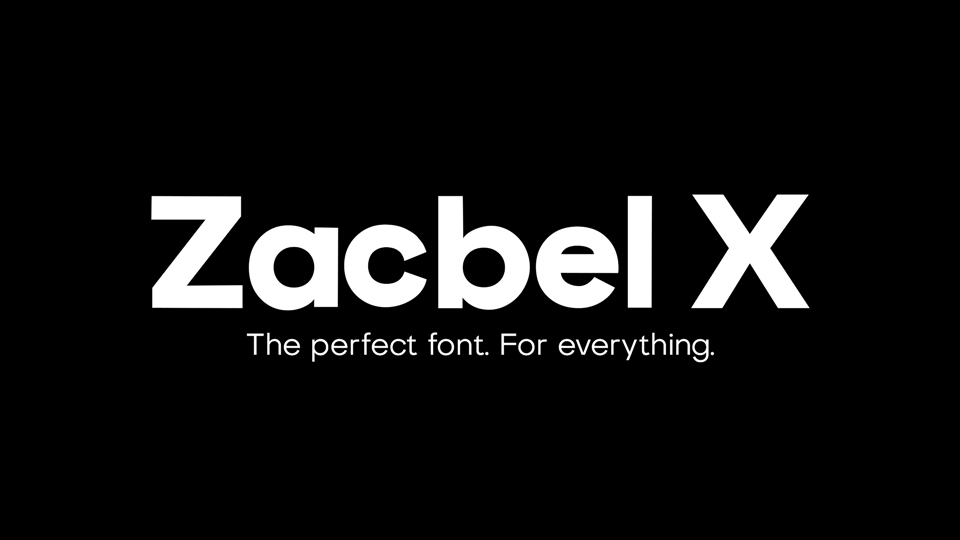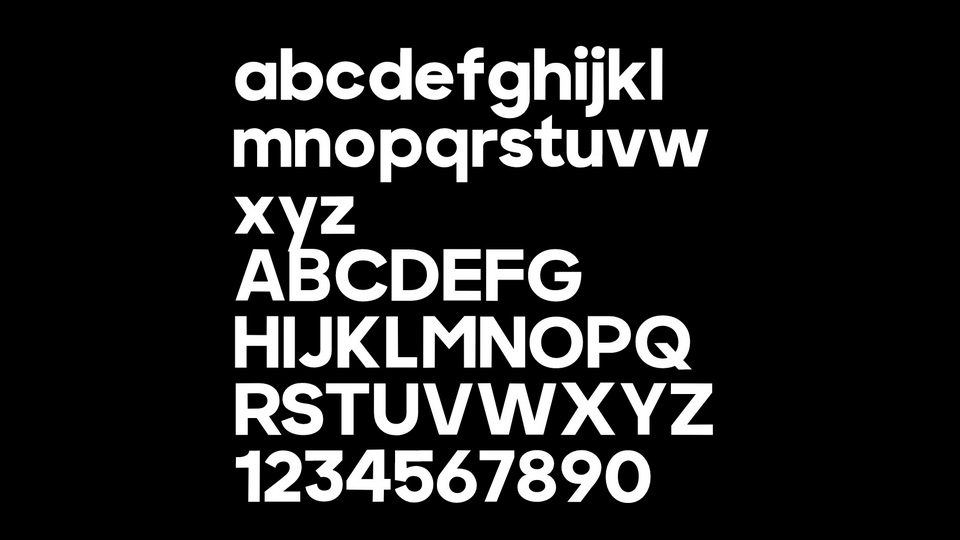
Zacbel X is a new, modern sans serif typeface that fits perfectly in any environment. Perfectly suited for graphic design and any display use. It could easily work for web, signage, corporate as well as for editorial design.